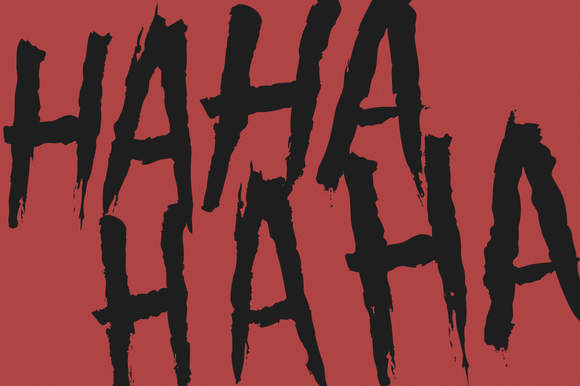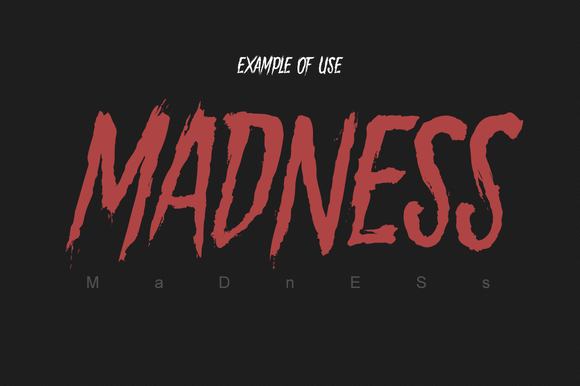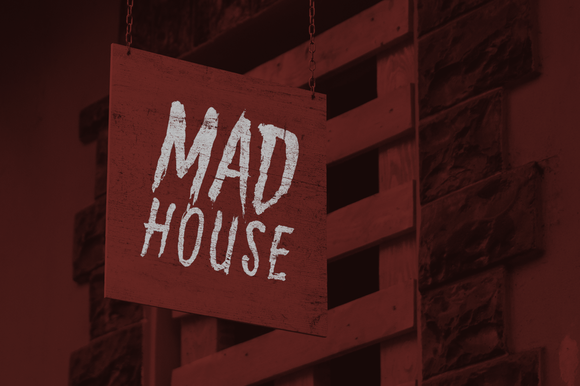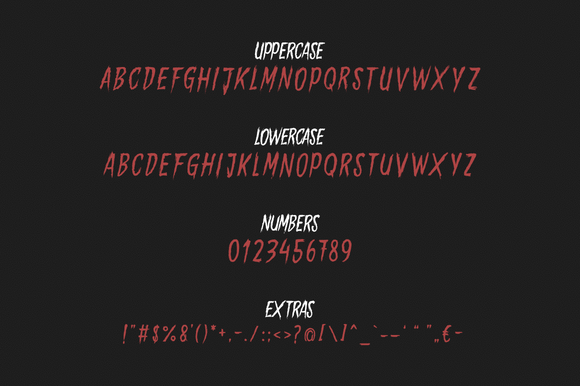
Gory Madness Font: Unleash the Horror in Your Designs
Are you a designer or crafter looking for a font that will add a touch of horror and nostalgia to your projects? Look no further than the Gory Madness font, a horror genre font inspired by vintage movie posters from the 70s. In this article, we’ll dive into the world of Gory Madness, exploring its unique features, uses, and benefits for designers and crafters.
The Inspiration Behind Gory Madness
Gory Madness is a font that pays homage to the classic horror movies of the 1970s. The font’s design is inspired by the iconic movie posters of that era, which often featured bold, distressed lettering and a sense of eeriness. The creators of Gory Madness aimed to capture the essence of those vintage posters and bring it to the digital world.
The font’s inspiration can be seen in its bold, chunky letters, which are reminiscent of the blockbuster horror movies of the 70s. The font’s distressed texture and irregular shapes add to its horror theme, giving it a unique and eye-catching appearance.
Key Features of Gory Madness Font
Gory Madness font comes with a range of features that make it perfect for horror-themed designs. Some of its key features include:
- Distressed texture: The font’s distressed texture gives it a worn, vintage look that’s perfect for horror-themed designs.
- Bold and chunky letters: The font’s bold, chunky letters are designed to grab attention and evoke a sense of horror.
- Irregular shapes: The font’s irregular shapes add to its horror theme, giving it a unique and unsettling appearance.
- Support for multiple languages: Gory Madness font supports multiple languages, making it a versatile choice for designers and crafters worldwide.
Uses for Gory Madness Font
Gory Madness font is perfect for a range of design projects, including:
- Horror movie posters: Create eye-catching movie posters that evoke the spirit of classic horror movies.
- Halloween designs: Add a touch of horror to your Halloween designs, including invitations, party decorations, and more.
- Graphic novels and comics: Use Gory Madness font to add a horror theme to your graphic novels and comics.
- Merchandise and apparel: Create eye-catching merchandise and apparel, including t-shirts, stickers, and more.
Gory Madness font offers a range of benefits for designers and crafters, including:
- Unique and eye-catching design: The font’s unique design is sure to grab attention and add a touch of horror to your projects.
- Versatile: The font’s versatility makes it perfect for a range of design projects, from horror movie posters to Halloween designs.
- High-quality: The font is designed to high-quality standards, ensuring that it looks great in any design project.
In conclusion, Gory Madness font is a horror genre font that’s perfect for designers and crafters looking to add a touch of horror and nostalgia to their projects. With its unique features, versatility, and ease of use, Gory Madness font is sure to become a go-to choice for horror-themed designs. Whether you’re creating a horror movie poster, Halloween design, or graphic novel, Gory Madness font is the perfect choice.